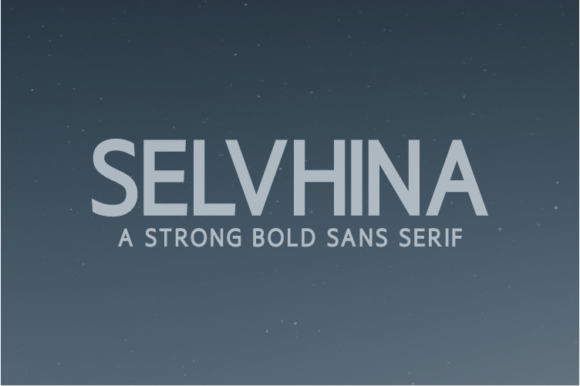
Introducing Selvhina Font: A Timeless Sans Serif Masterpiece for Your Creative Endeavors
In the realm of typography, where letters dance and characters tell stories, Selvhina Font emerges as a captivating sans serif masterpiece. Its clean lines, sophisticated curves, and timeless elegance make it the perfect companion for your creative pursuits. Whether you're crafting logos that leave a lasting impression, designing social media posts that captivate audiences, or embarking on crafty DIY projects that reflect your unique style, Selvhina Font is your trusted ally.
A Journey Through Versatility: From Logos to Social Media and Beyond
With its inherent versatility, Selvhina Font effortlessly adapts to a myriad of creative endeavors. Its clean and sophisticated design lends itself seamlessly to logo creation, where it transforms ordinary words into symbols of distinction. Elevate your brand identity with Selvhina Font, crafting logos that exude professionalism and leave an unforgettable mark on your customers' minds.
But Selvhina Font's talents extend far beyond the realm of logos. Its captivating presence graces social media posts, transforming ordinary updates into visually stunning masterpieces. Selvhina Font's ability to command attention and engage audiences makes it the perfect choice for social media marketers seeking to make a lasting impact.
And for those with a passion for crafty DIY projects, Selvhina Font opens up a world of endless possibilities. Its clean lines and sophisticated curves add a touch of elegance to invitations, greeting cards, and other personalized creations. Let Selvhina Font be your creative muse, inspiring you to craft handmade treasures that reflect your unique style and bring joy to those who receive them.
Unleash Your Creativity with Selvhina Font: The Perfect Choice for Modern Sans Serif Enthusiasts
If you seek a sans serif font that embodies modernity, sophistication, and versatility, look no further than Selvhina Font. Its clean lines and elegant curves make it the perfect choice for a wide range of creative projects, from logos and branding to social media and DIY endeavors.
With Selvhina Font, you have the power to transform your creative vision into a captivating reality. Its timeless design ensures that your creations will stand the test of time, leaving a lasting impression on your audience. Embrace the beauty of Selvhina Font today and embark on a creative journey that knows no bounds.